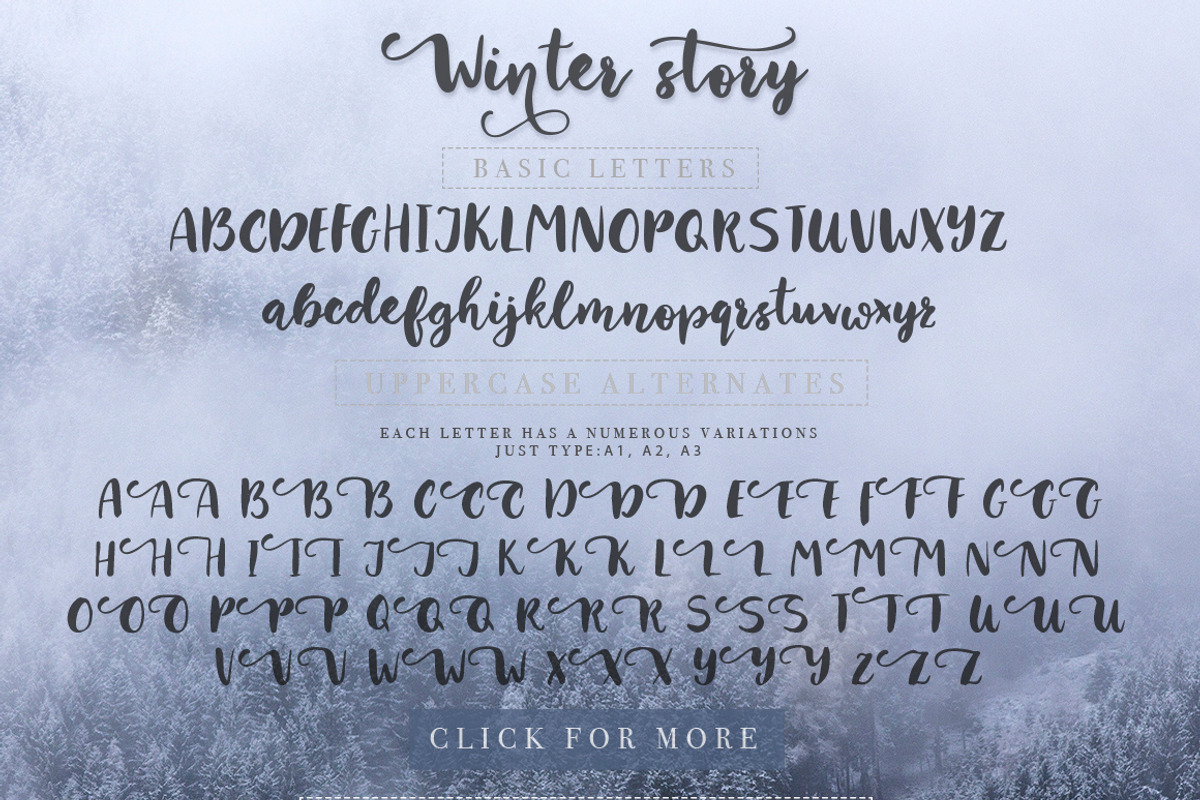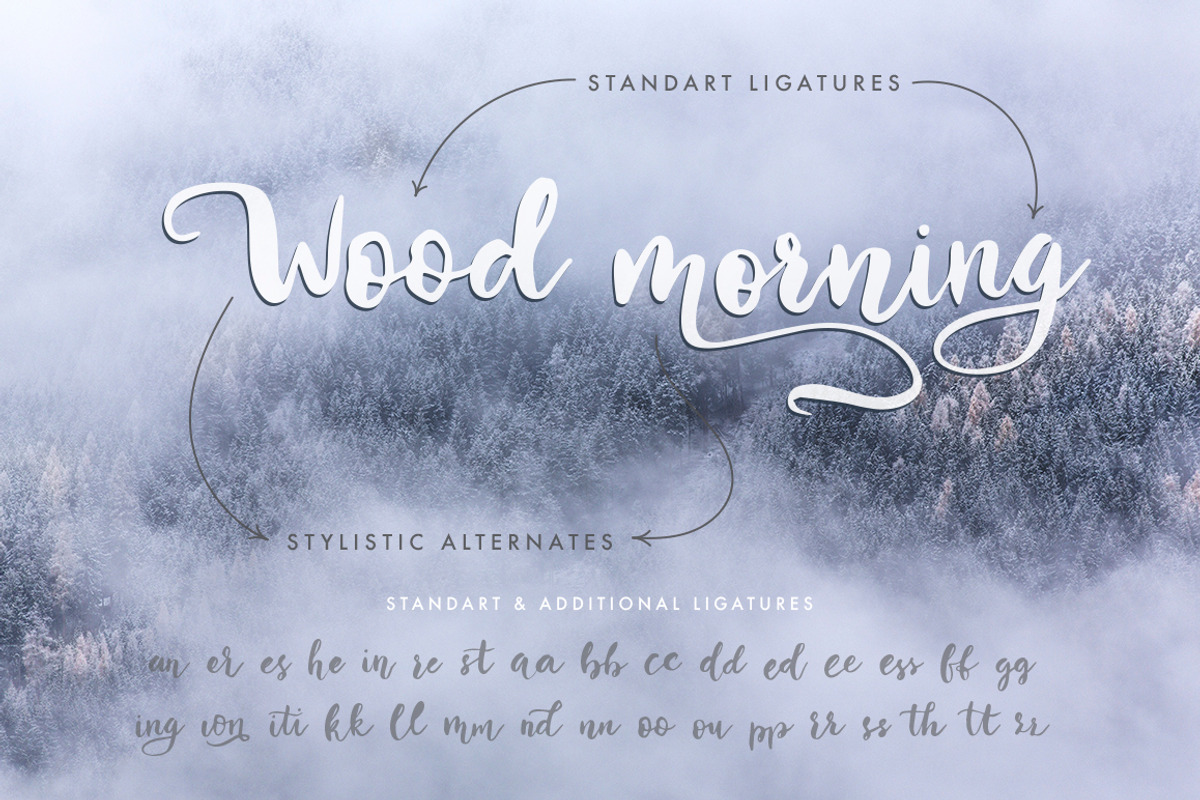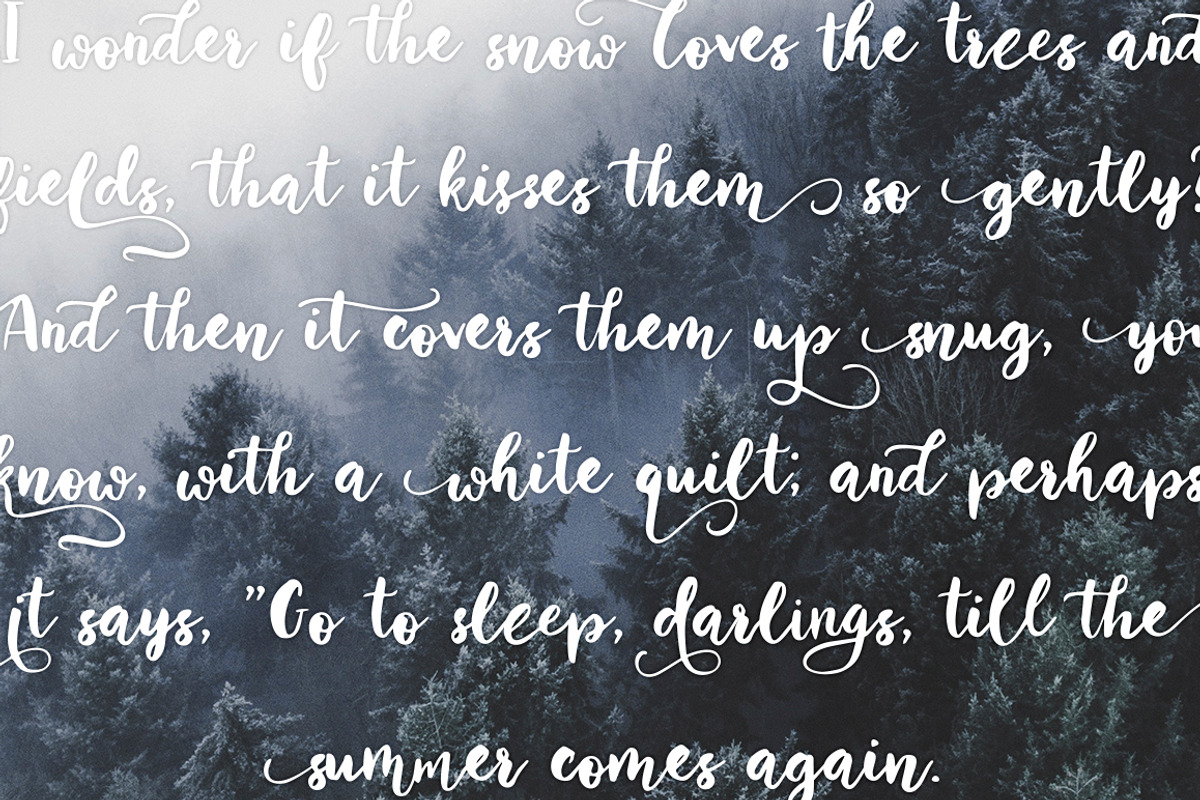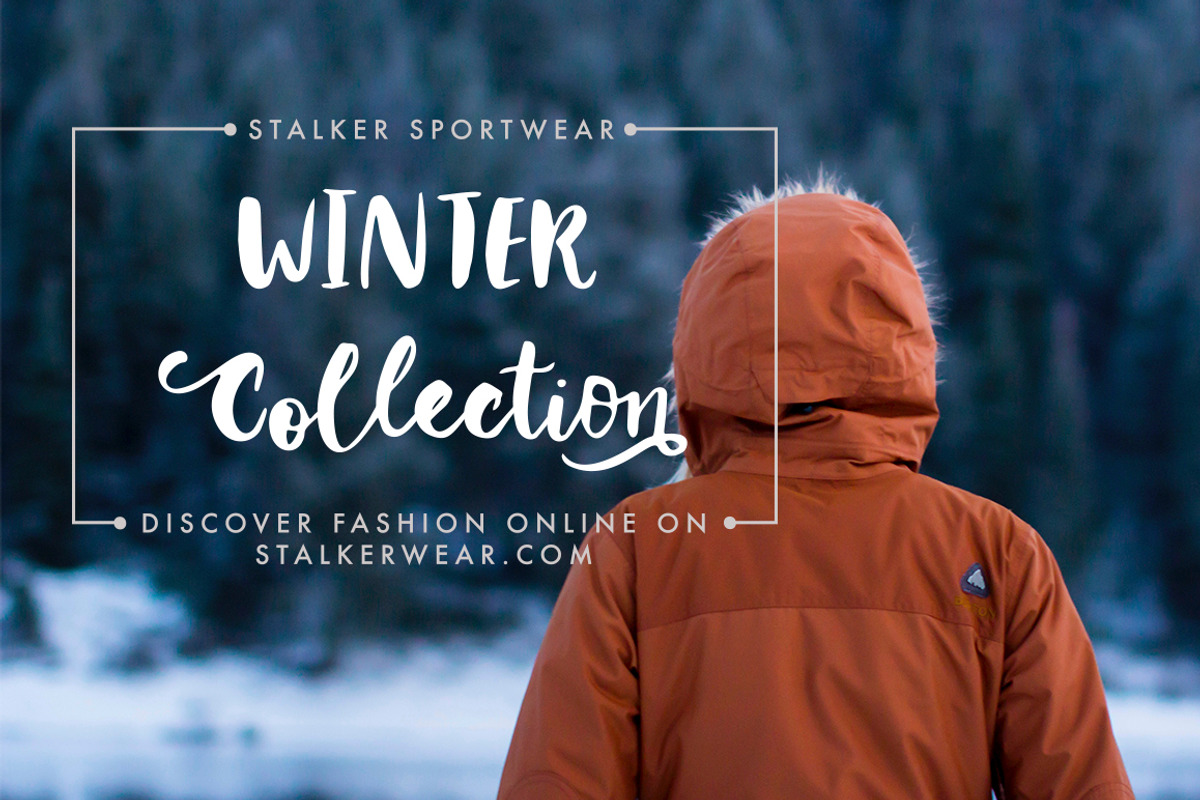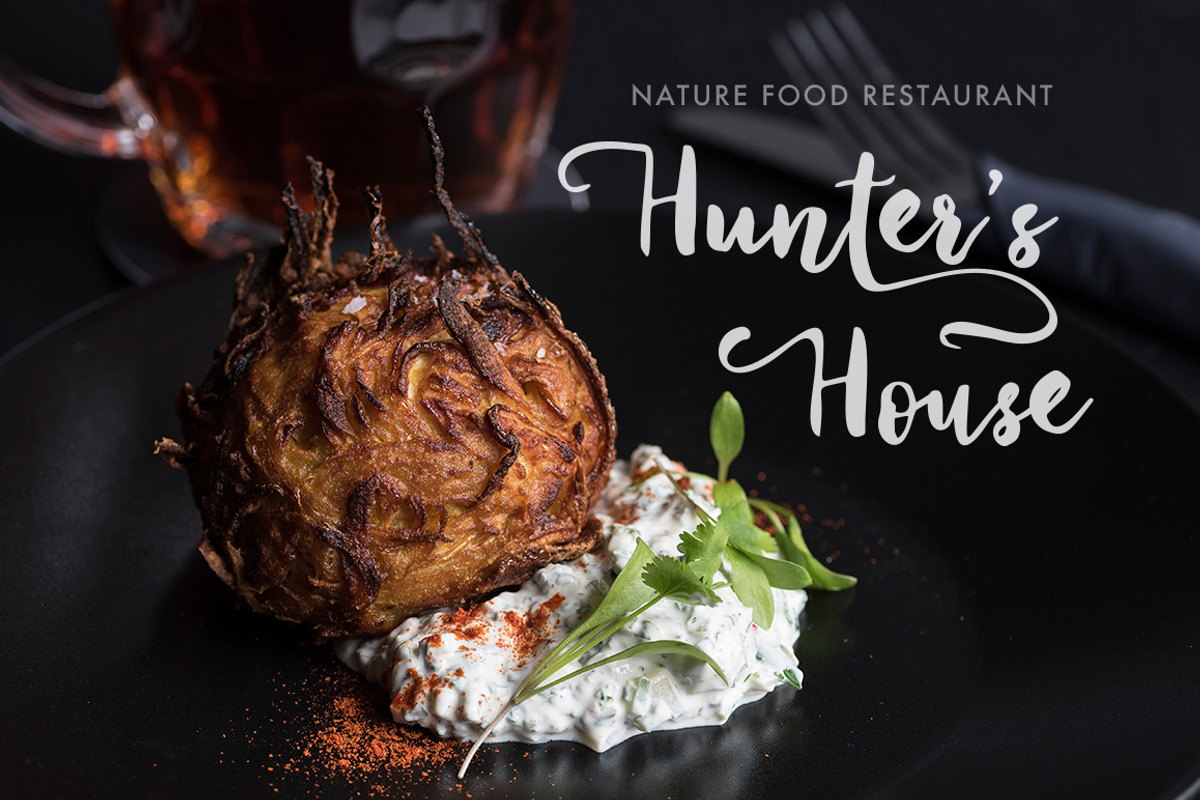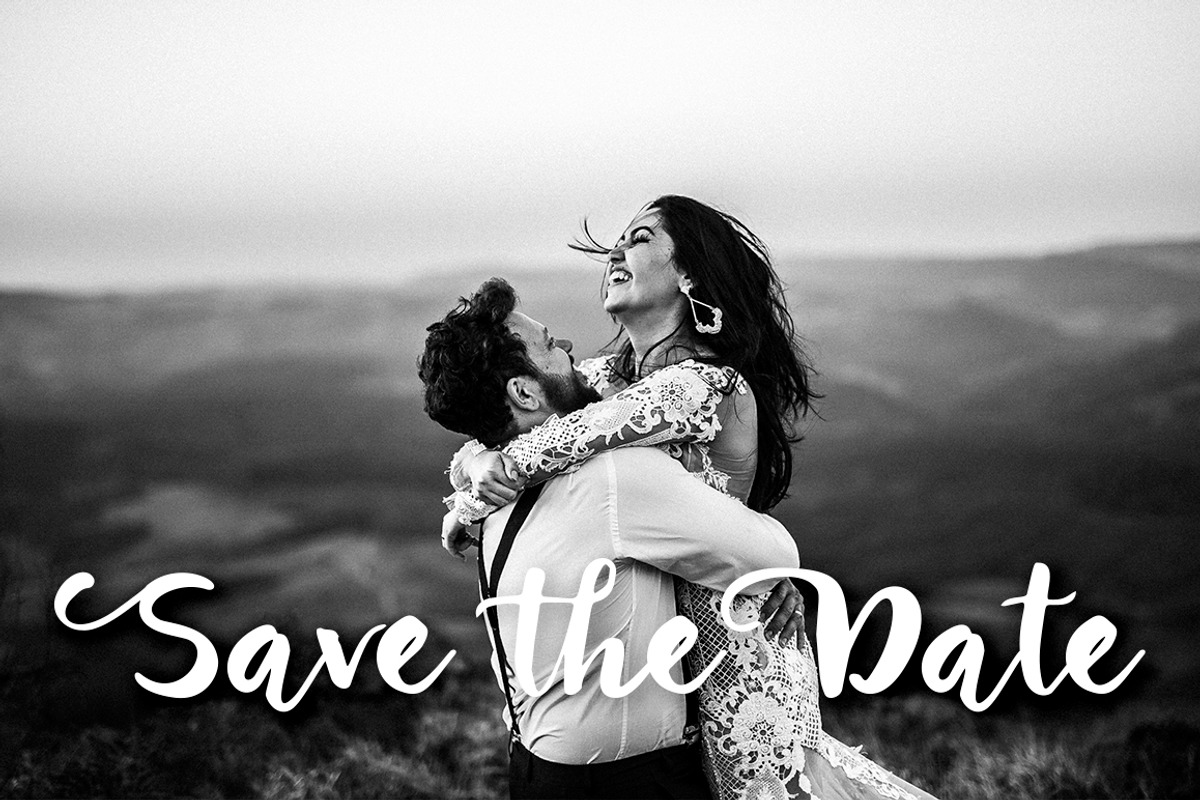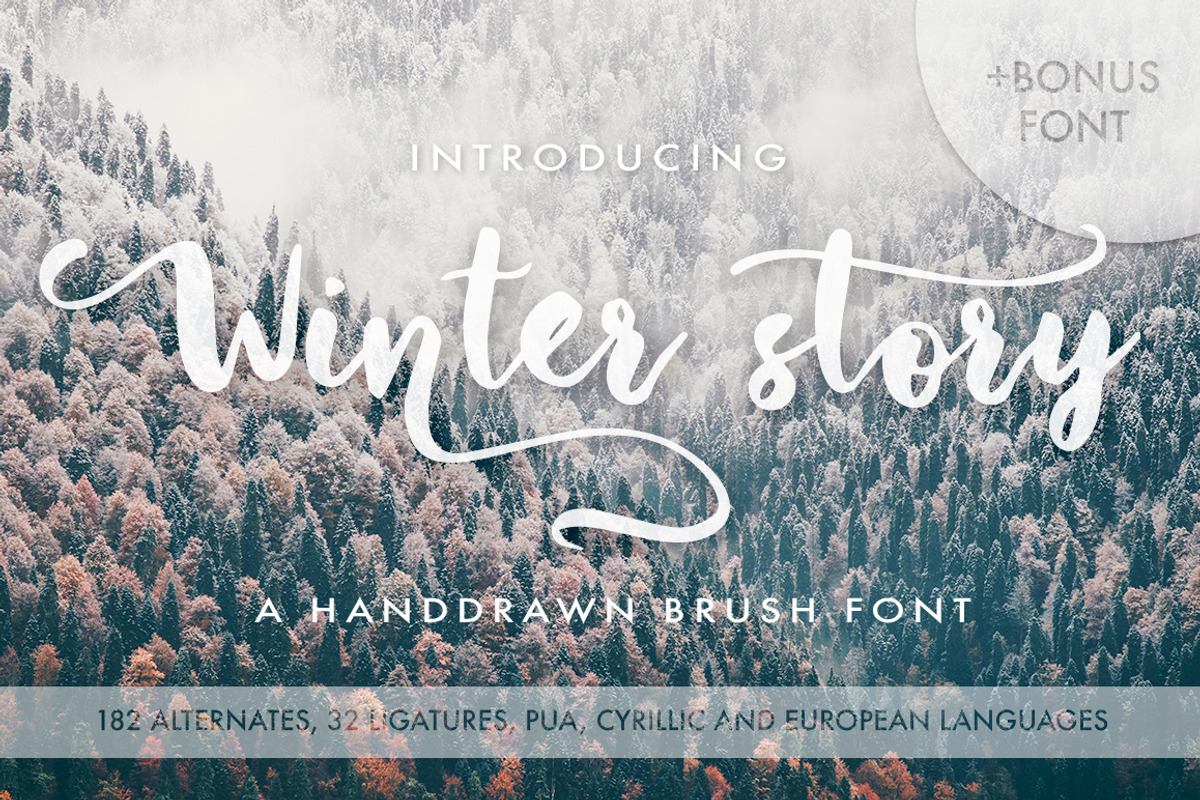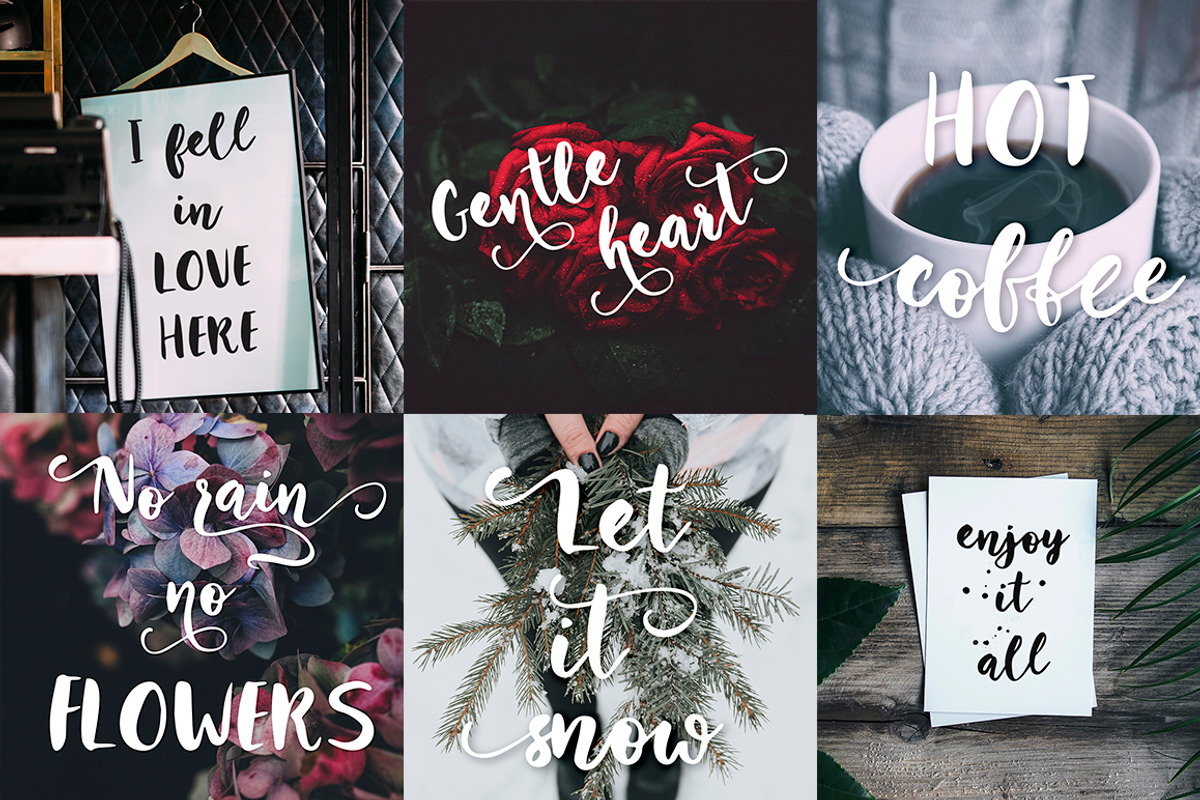
Winter Story Font & Extras
Winter Story is a beautiful script font with an unique bouncy character.
4 variants of letters for the uppercase and 5 variants of letters for the lowercase, make this font an unique tool for creating handdrawn texts, which are written with a brush and ink.
It’s very easy to get alternative glyphs:
just type the number after any letter ( 1…3 for uppercase, 1…4 for lowercase)”. So, you can forget about the Glyphs panel and have fun and great results just type numbers after letters. Scroll down and use preview window for testing.
You can still use the Glyphs panel. You’ll see there 182 contextual and stylistic alternate glyphs and 32 ligatures.
❉ BONUS: Winter Lettering Font. ❉
You will also receive an additional font that includes 26 winter handdrawn lettering pieces for all alphabet. Each lettering is created by hand with ink and brush and contains handdrawn texture.